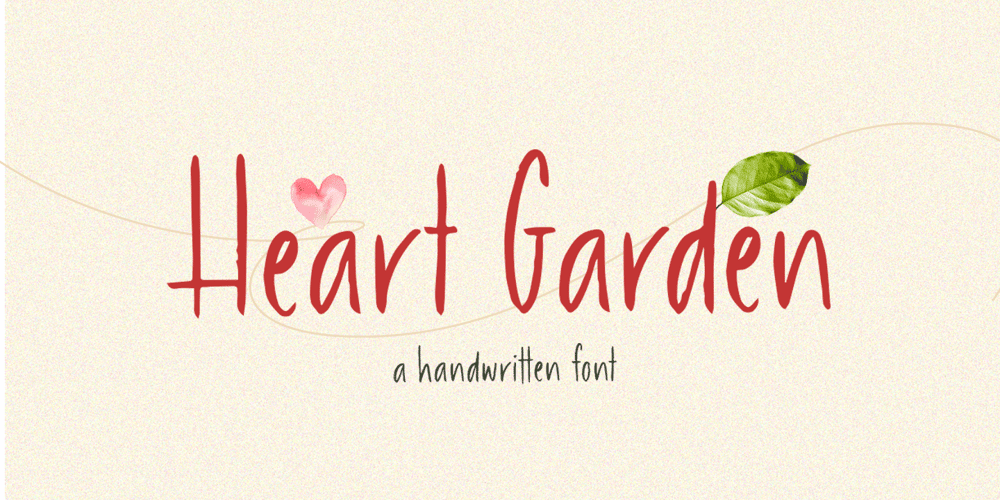
Heart Garden Font Family was designed by Hendry Juanda and published by Letterhend. Heart Garden contains 1 styles and family package options. Thin and casual font with modern touch give aesthetic & simple font choice for your projects. This typeface has beautiful and modern look which is perfectly made to be applied especially in headline, logotype, apparel, invitation, branding, packaging, wedding card, advertising etc.Features : uppercase & lowercase numbers and punctuation multilingual alternates and ligatures PUA encoded We highly recommend using a program that supports OpenType features and Glyphs panels like many of Adobe apps and Corel Draw, so you can see and access all Glyph variations.